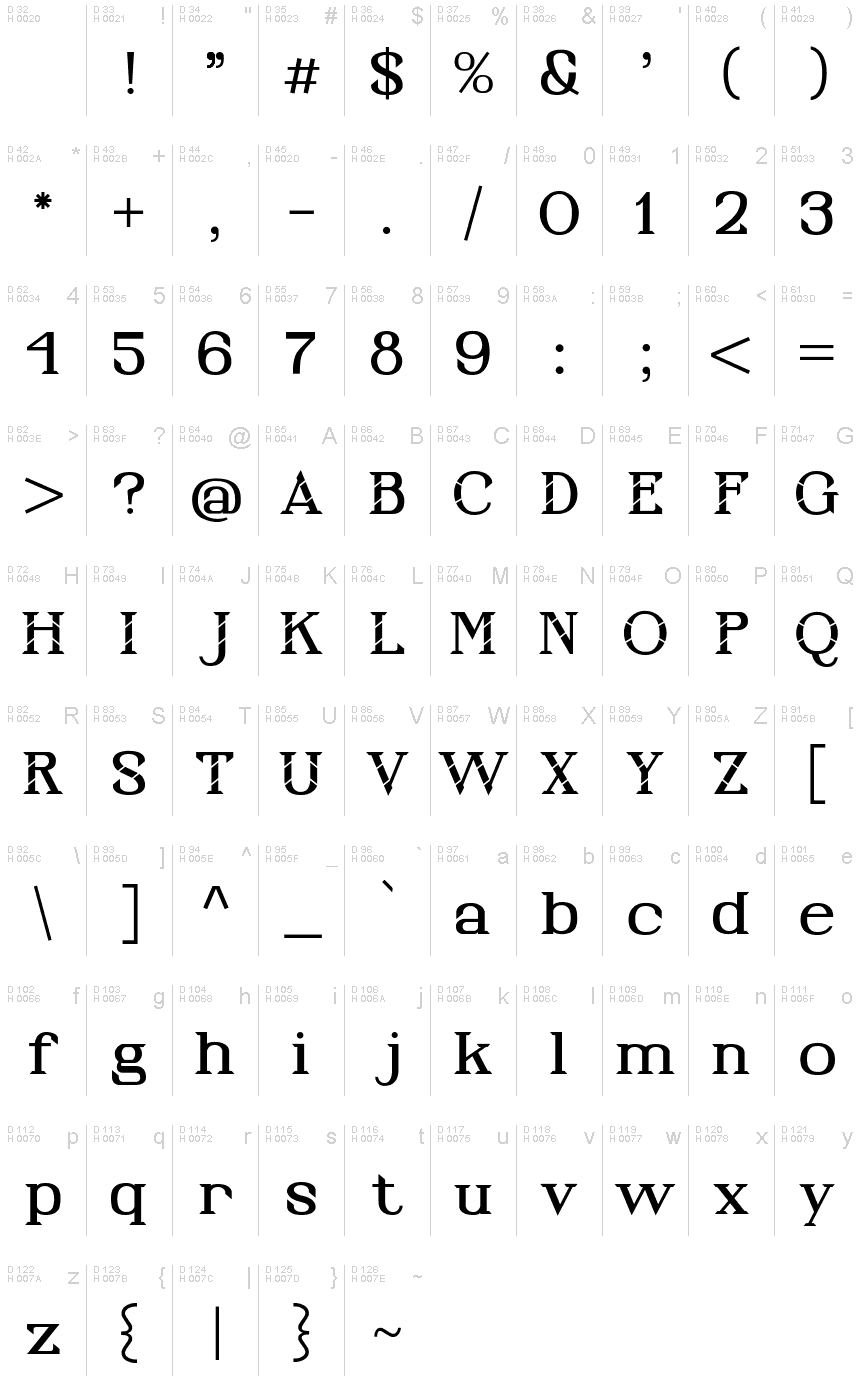
Runcing Regular
"Runcing" is a free contemporary serif font designed by Deo Sebastian. Inspired by the Bamboo Runcing monument in Surabaya,Indonesia. Which is the basic form of anatomy. In addition, this font also takes the spirit of the heroes and the languange culture of Surabaya People.